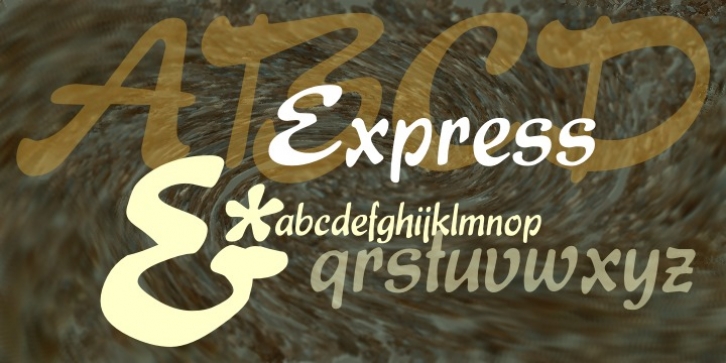
Express downloadDesigner: Natalia Vasilyeva
Publisher: ParaType
Express® is based on the lettershapes of Express typeface designed for Ludwig & Mayer in 1957 by Walter Hoehnisch. A tall, bold script with even inclination. Cyrillic version developed in 2001 by Natalia Vasilyeva. For use in advertising and display typography.